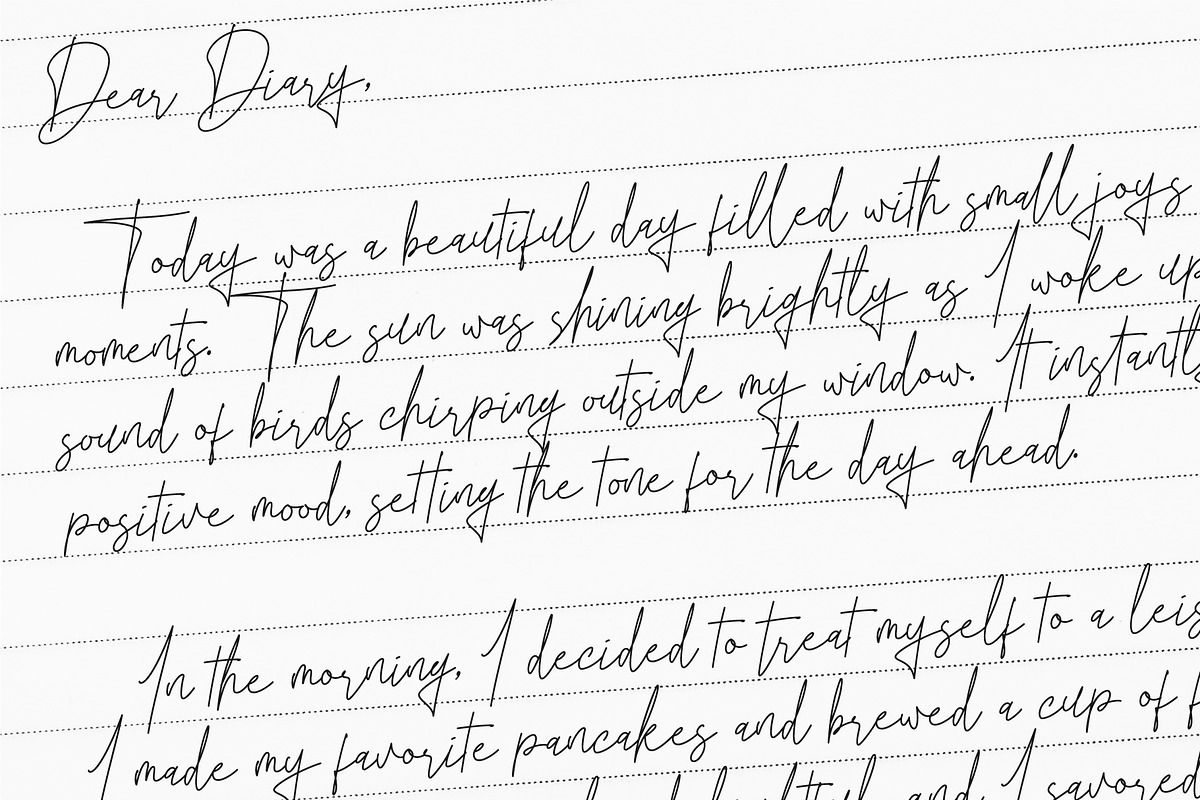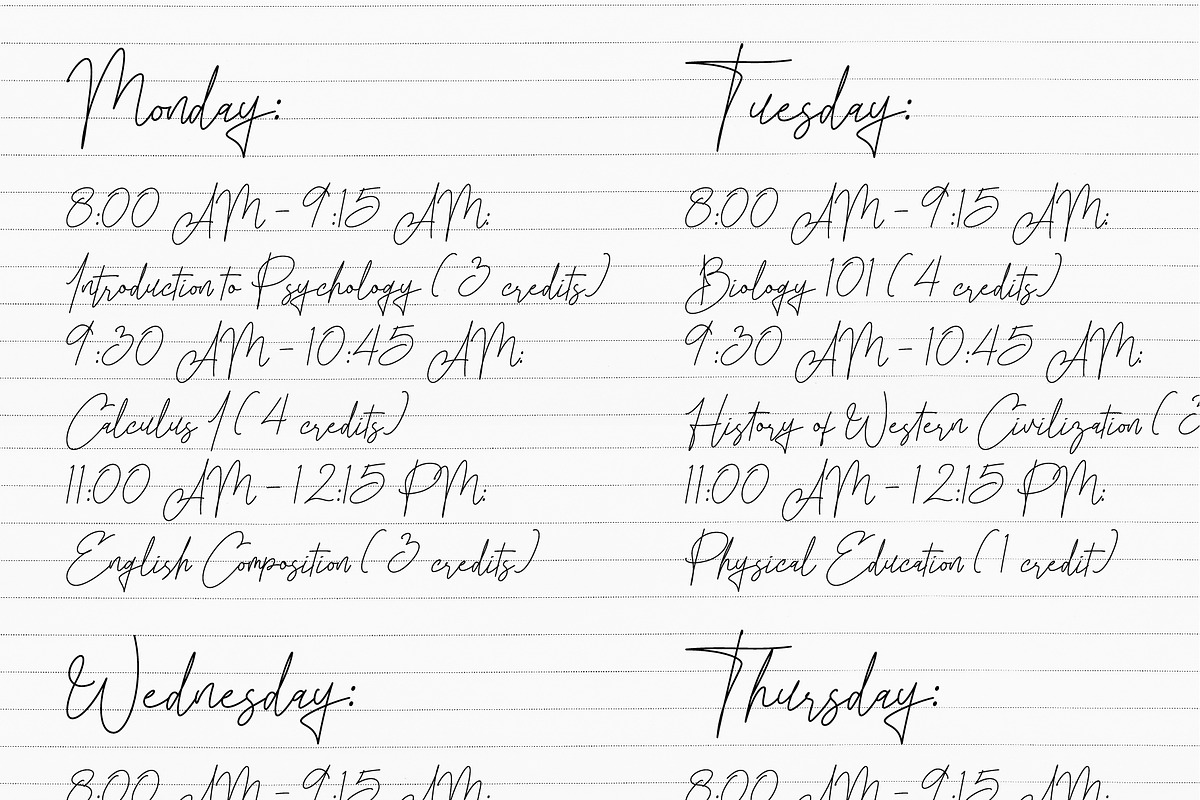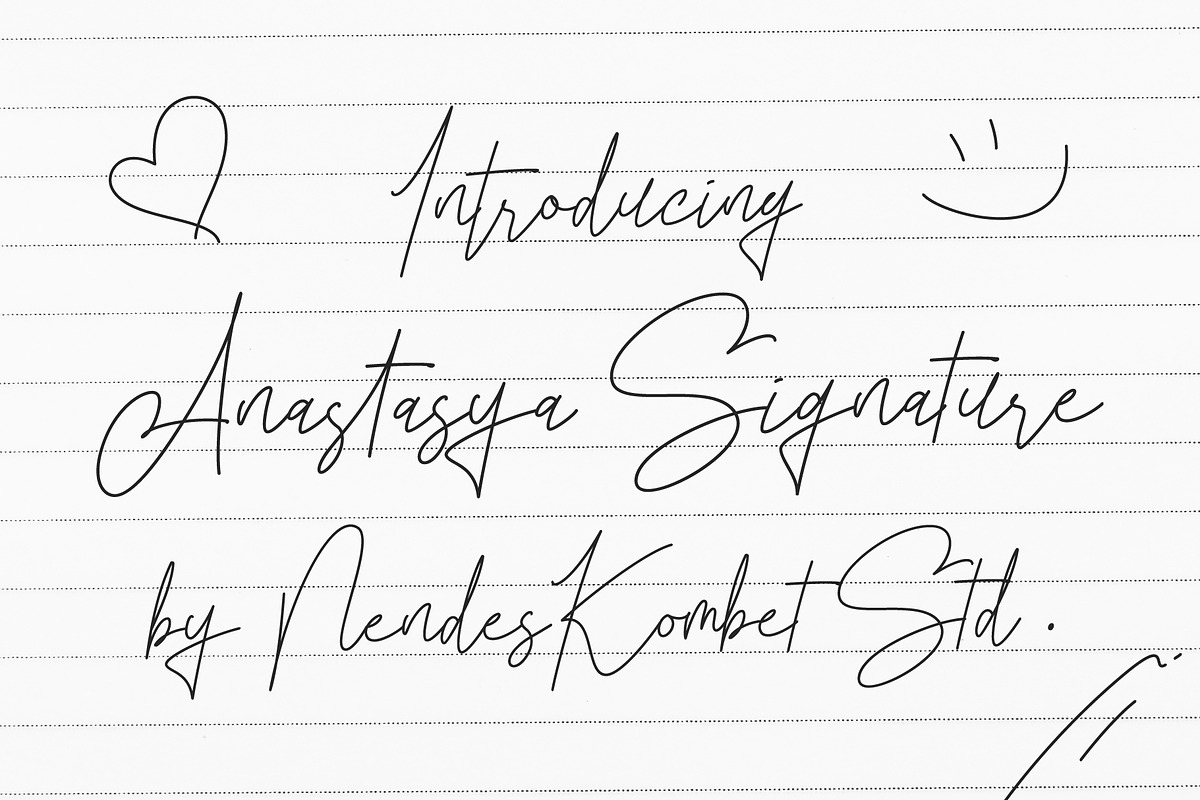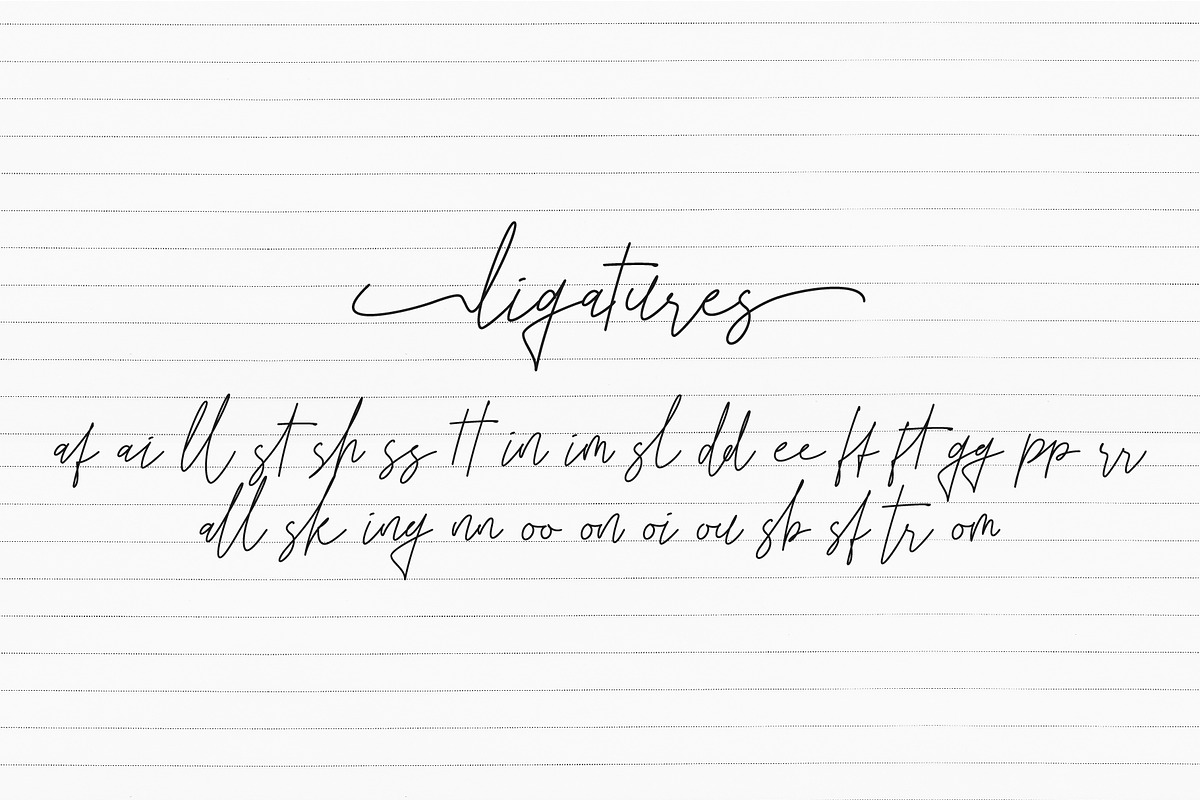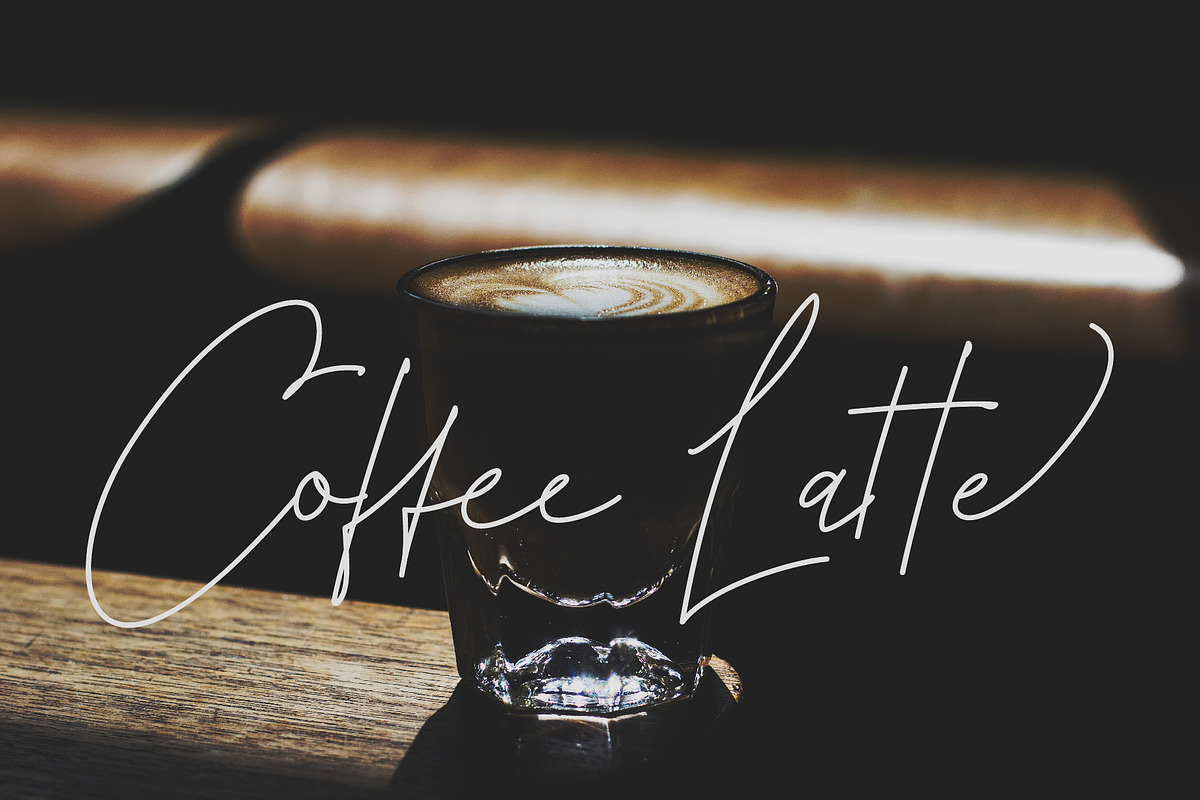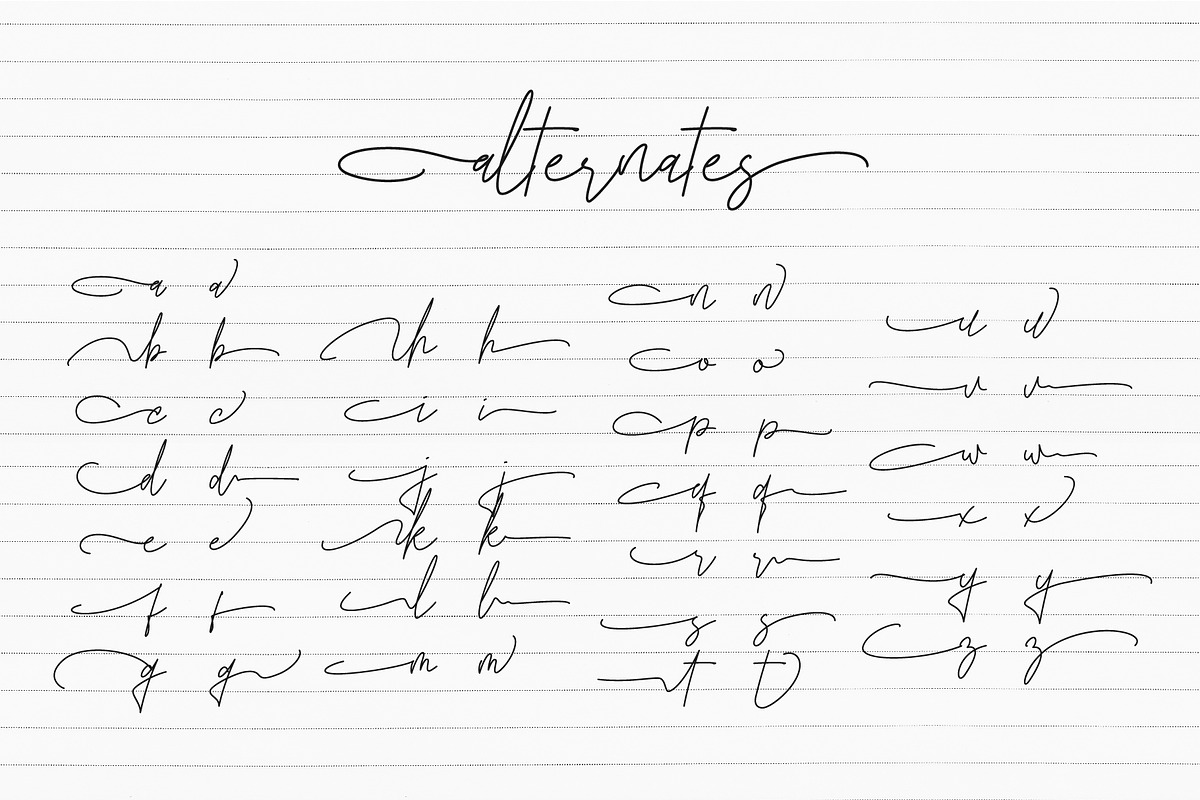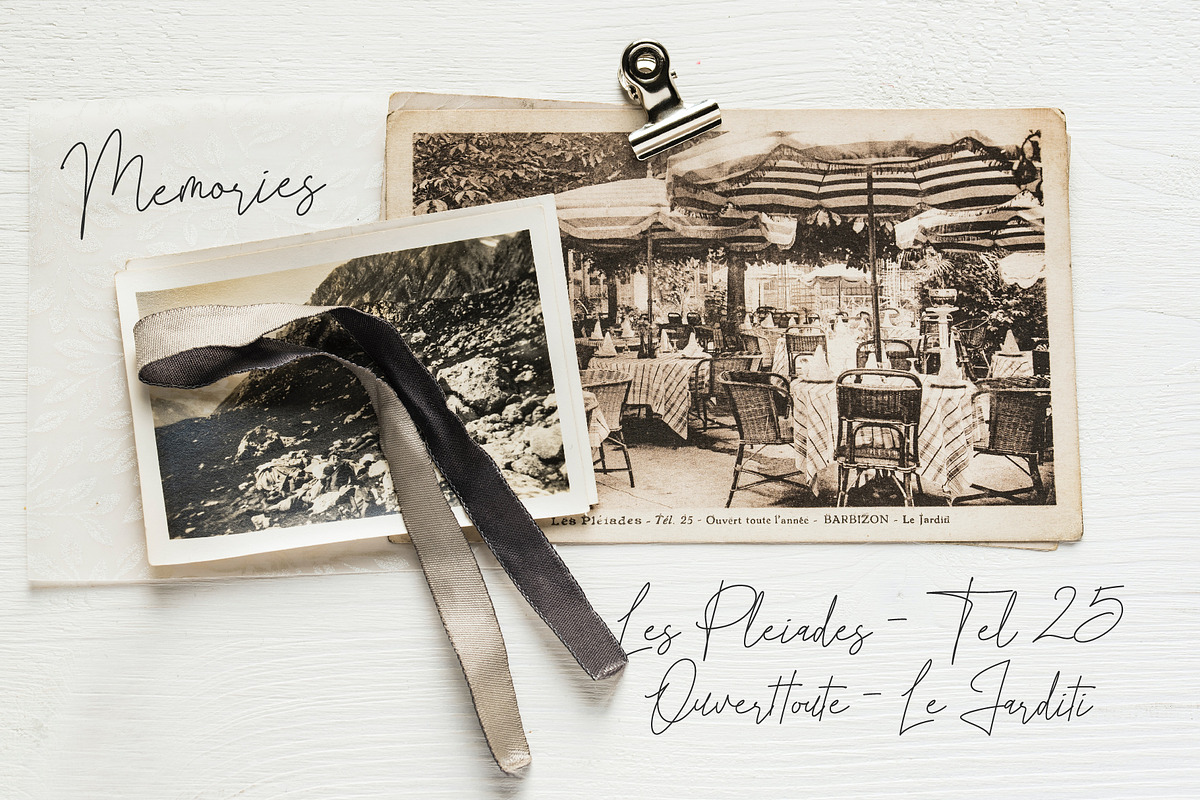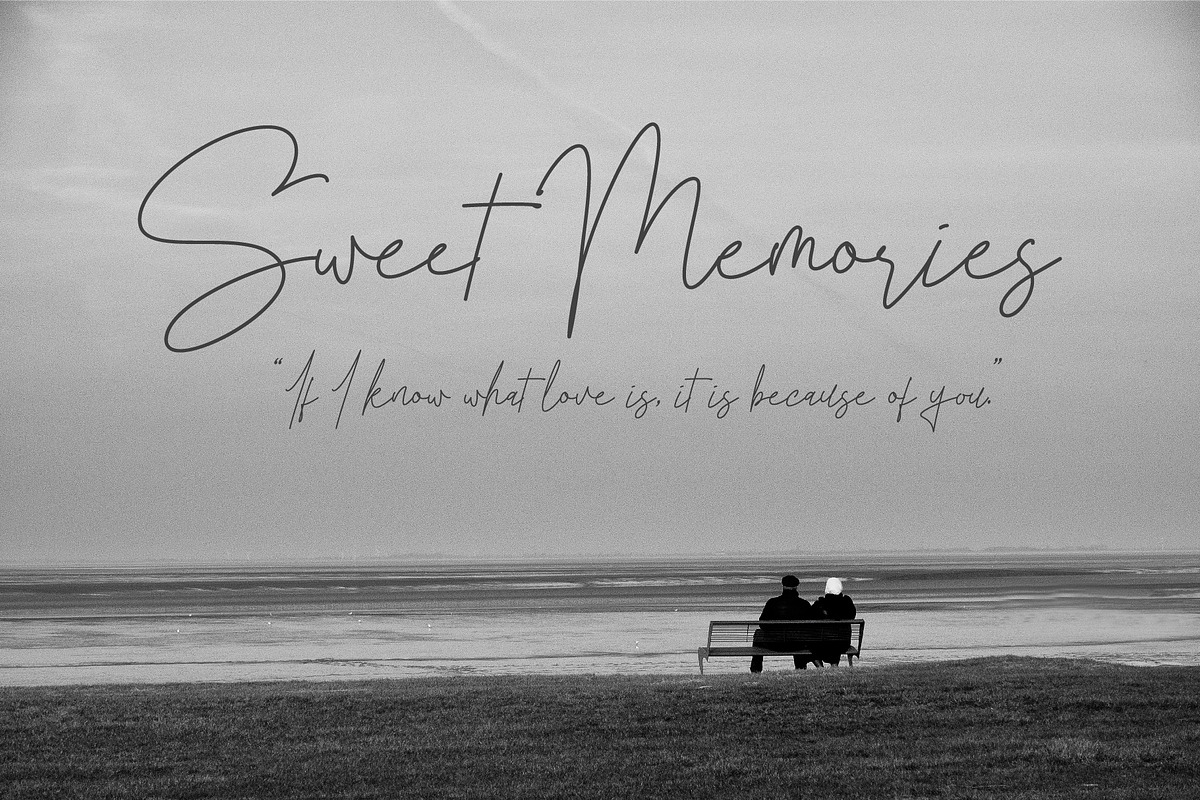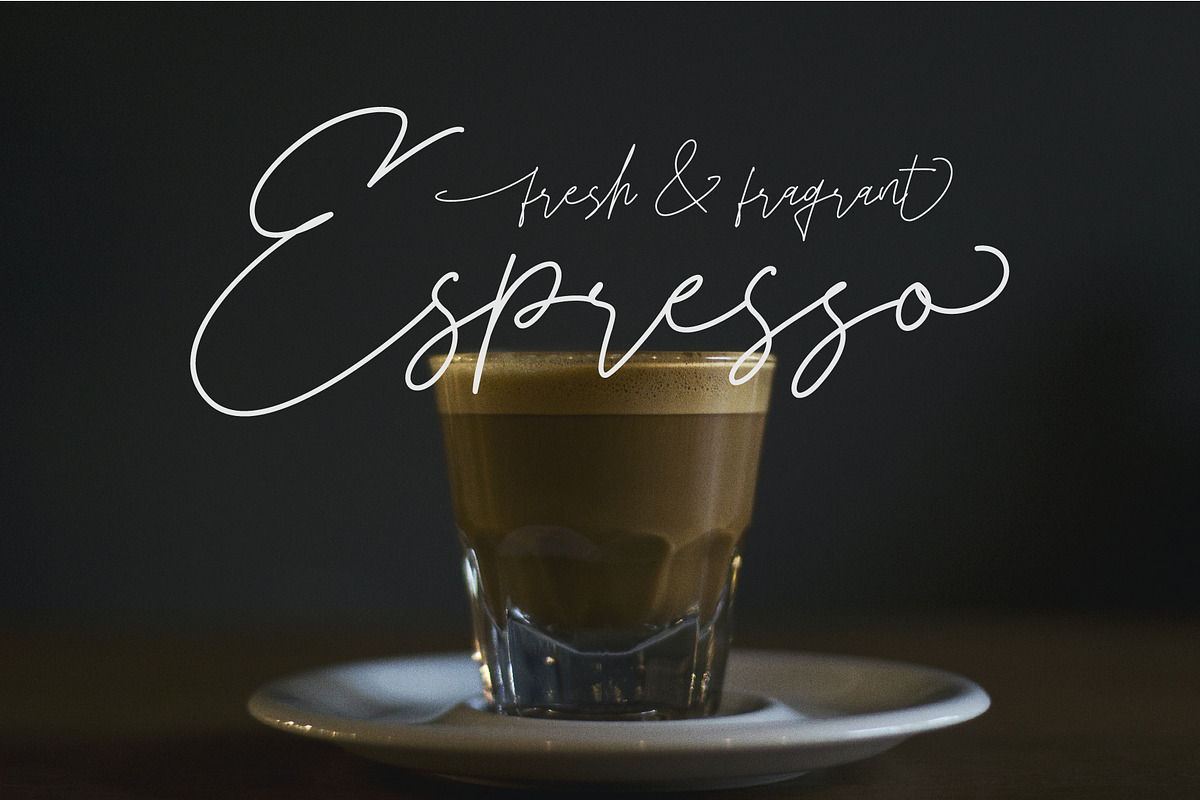
Anastasya Signature
Unleash the Timeless Charm of Handcrafted Elegance: Introducing Our Exquisite Handwritten-Like Font Collection, Anastasya Signature
Indulge in the sheer beauty of meticulously crafted letters that dance across the page with an enchanting fluidity. Our hand-written-like font collection breathes life into your designs, infusing them with a warm, personal touch that captivates hearts and minds.
Immerse yourself in the artistry of every stroke, carefully mimicking the authentic charm of hand-drawn penmanship. Each character exudes a unique personality, carrying the essence of human expression, unrivaled by standard computer-generated fonts.
Whether you're designing greeting cards, invitations, logos, posters, or any creative project, this font collection elevates your work to a whole new level of elegance and sophistication. Captivate your audience with a sense of nostalgia, invoking memories of timeless handwritten notes and love letters.
Anastasya Signature is also included full set of :
- Uppercase and Lowercase Letters
- Multilingual Symbols